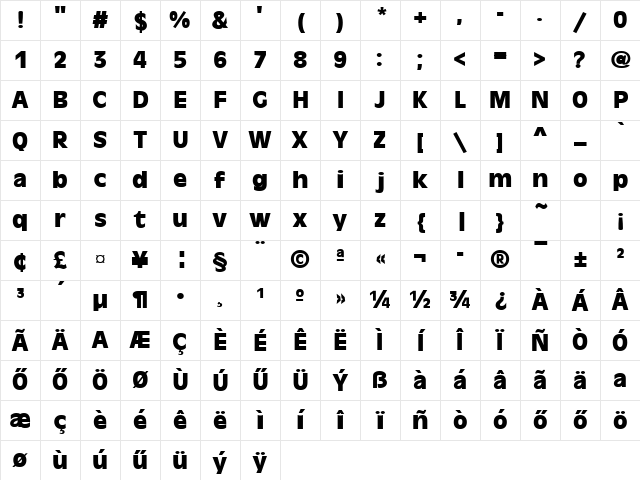
Hu_Anti Regular Free Font
Hu_Anti Regular
Design Context for Hu_Anti
Hu_Anti is a composed and adaptable typeface that performs quietly and consistently across a wide range of design contexts.